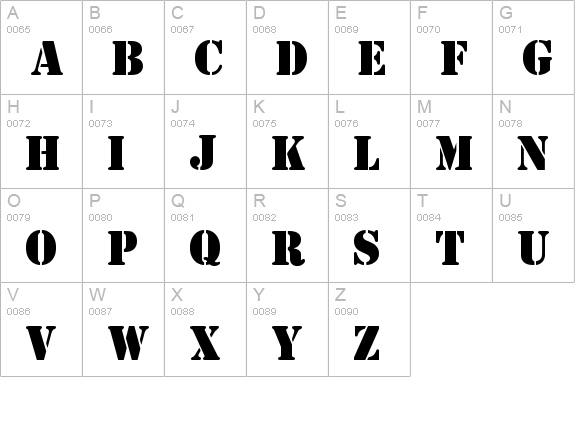
Estensil Font Details
The Estensil font is a modern and stylish typeface that exudes elegance and sophistication. With its clean lines and sleek design, this font is perfect for a wide range of design projects, from logos to branding to invitations. The unique combination of sharp edges and rounded corners gives the Estensil font a contemporary and versatile look that will make your text stand out. What's even better is that the Estensil font is available for free download at FontsMarket.com. This means you can easily access this beautiful font without any cost, making it a valuable addition to your font collection. Whether you're a designer looking for a fresh new font to add to your arsenal or a business owner in need of a stylish typeface for your marketing materials, the Estensil font is sure to impress. Download it today and elevate your designs with this stunning and free font.